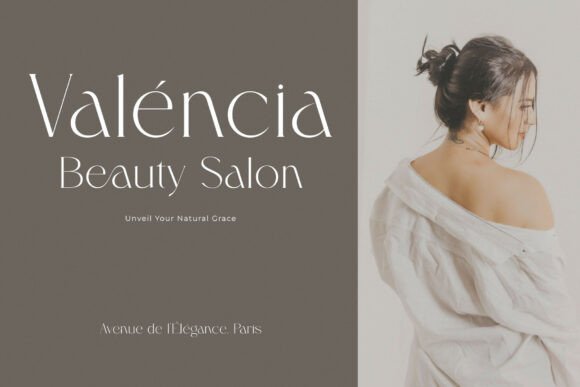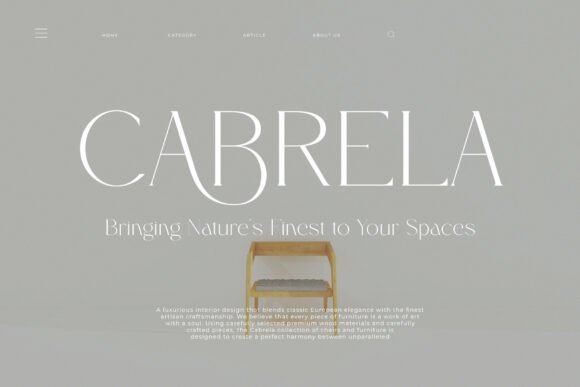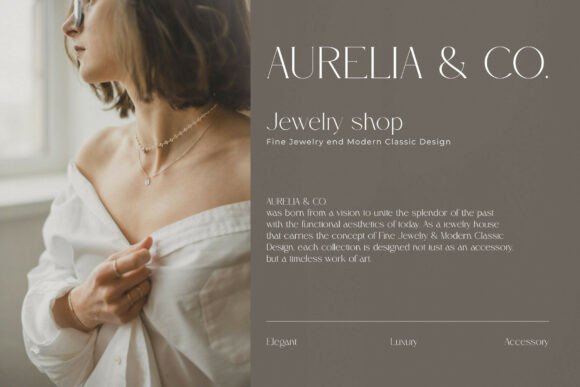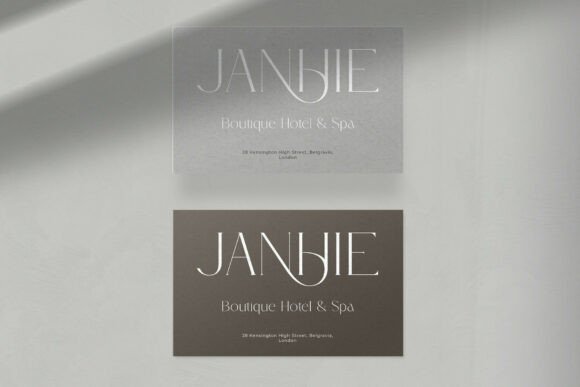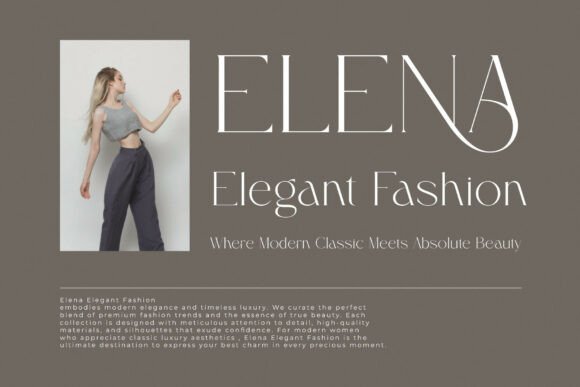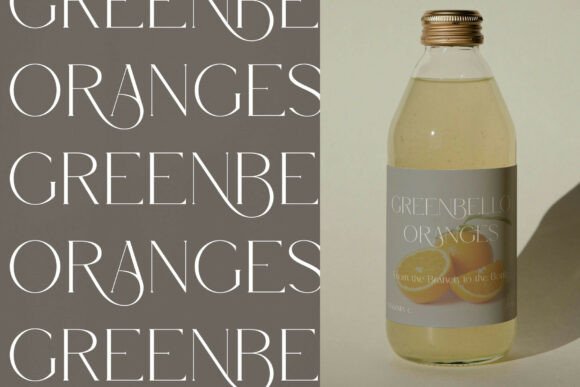
Introduction to Ethorys Font
Elevate your visual identity with Ethonys, a breathtakingly elegant serif font.
Perfectly striking the balance between timeless sophistication and contemporary editorial design, this typeface features high-contrast stokes, refined serifs, and exquisitely curved ligatures that fluidly connect letterforms (like the stunning ‘t-h’ pairing) Ethonys is tailor-made for high-end industries where aesthetics are everything.